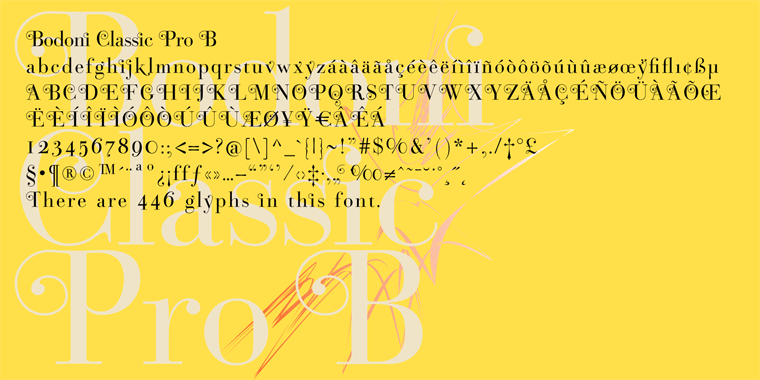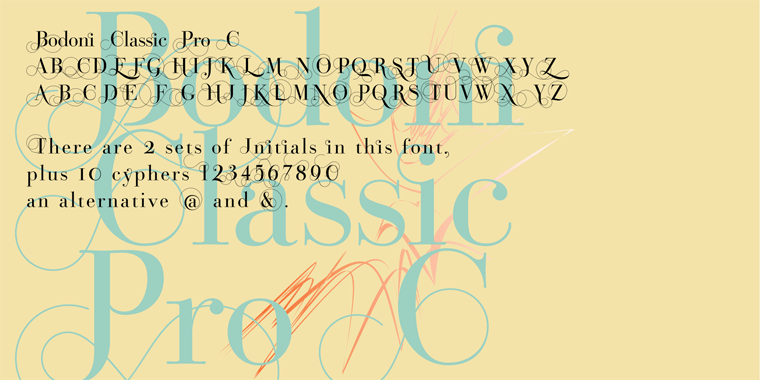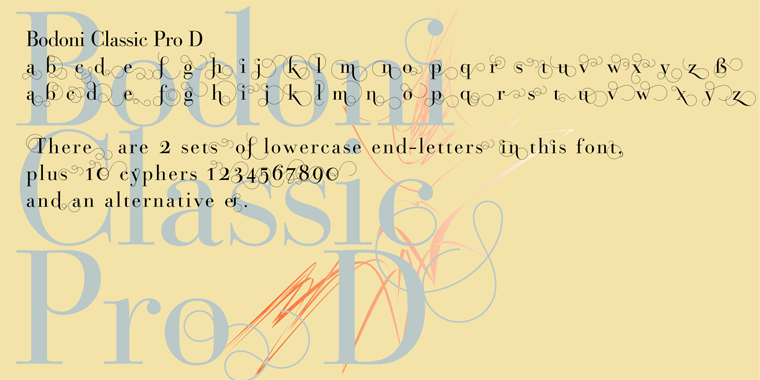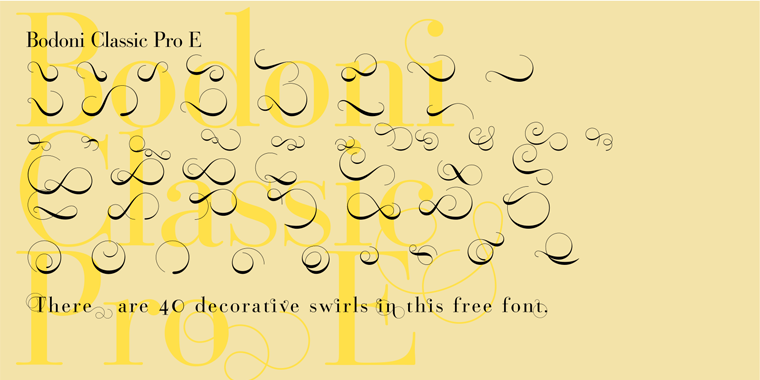
Bodoni Classic Pro
This is my new, completely worked over and fine-tuned Bodoni Classic for Europe (no Greek and Cyrillic). I have added a set of elegant Swashes (B) and 2 alternating uppercase swirly Initials (C) as well as two lowercase end-letters (D). The fonts A and B have extensive kerning, which the initials (C) don't need, they are aligned to replace the standard capital letter. The lowercase end-letters (D) are aligned to replace the standard lowercase letters, so you might need to add a blank after the swirl. For good measure I throw in an extra set of swings for 1 Dollar (E). Your Bodoni maniac, Gert Wiescher